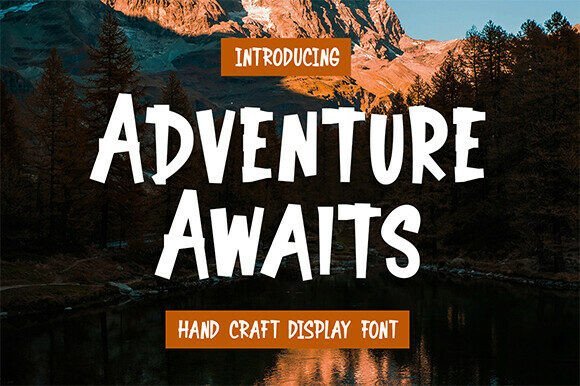
Unlock the Power of Adventure
Remember that moment when you stumbled upon a hidden gem in your favorite design resource? The rush of excitement, the thrill of discovery – it’s a feeling every creative professional craves. And what if we told you that there’s a font that captures that essence, transporting your designs to uncharted territories of style and sophistication?
Enter Adventure Awaits Font, a handcrafted display font designed to fuel your imagination and spark your creativity. This bold and lively font is the perfect companion for designers who dare to dream big, aiming to inspire, motivate, and stand out in a crowded design landscape. With Adventure Awaits Font, the possibilities are endless, and the adventure is yours to take.
Adventure Awaits Font Key Features
- Font Family: A modern, hand-drawn font with a adventurous feel, suitable for various design projects.
- Character Set: Includes over 400 characters, including uppercase and lowercase letters, numbers, and punctuation marks.
- Unique Characteristics: Features a unique blend of handwritten and typographic elements, with subtle variations in line width and letterform to create a sense of movement and energy.
Review of Adventure Awaits Font
Overall, I’m impressed with the Adventure Awaits Font. It has a unique, adventurous feel that’s perfect for projects that need a sense of excitement and exploration. ✨ The font’s bold lines and playful letterforms make it stand out from more traditional sans-serif fonts.
One of the things that works well is the font’s versatility. It’s available in a range of weights, from light to bold, which makes it easy to use in different contexts. ✨ The font also includes a variety of glyphs and ligatures, which adds to its charm and makes it more suitable for creative projects.
However, there are some limitations to consider. ⚠️ For one, the font may not be the best choice for projects that require a lot of text. The font’s bold lines and playful letterforms can make it difficult to read large blocks of text, and it may not be suitable for projects that need to convey a sense of professionalism or formality.
- Unique, adventurous feel
- Bold lines and playful letterforms
- Available in a range of weights (light to bold)
- Includes a variety of glyphs and ligatures
For optimal results, use the Adventure Awaits font in conjunction with bold or italic styles to add emphasis and create visual interest.
Experiment with different font sizes and colors to create a cohesive and eye-catching design.
The Adventure Awaits font is ideal for:
- Outdoor and adventure-themed designs
- Travel and tourism marketing materials
- Experiential and event branding